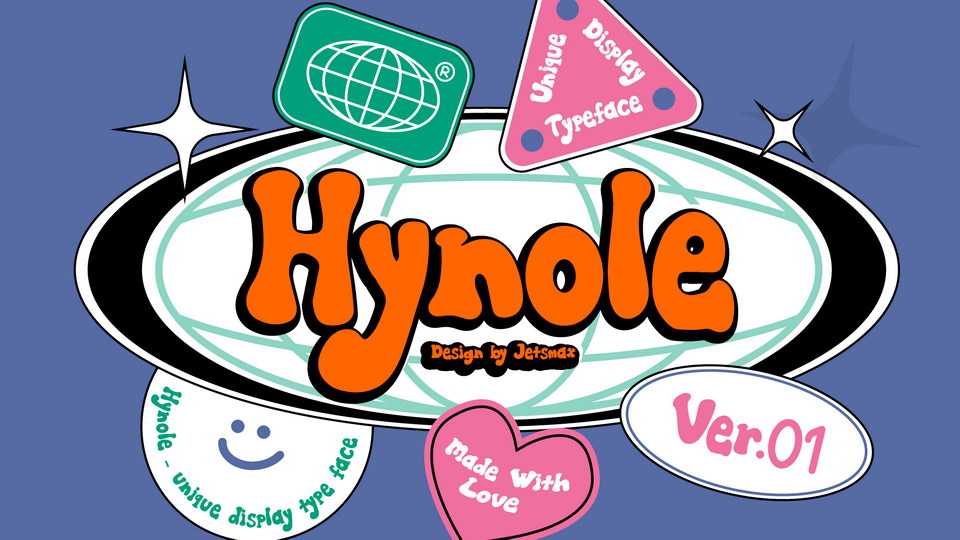
Download Hynole font, a unique display typeface inspired by retro typography from the 80’s combine with bold style. Your design projects will absolutely look fancier with this font.
Designer: Jetsmax Studio